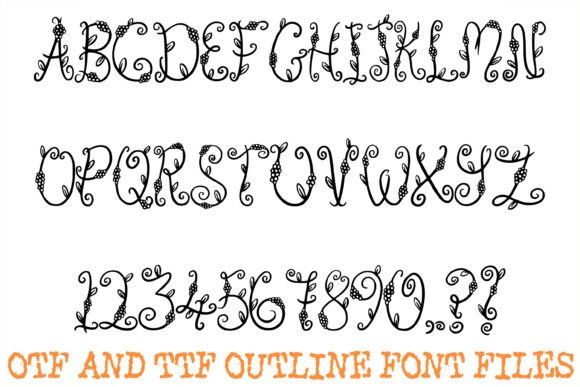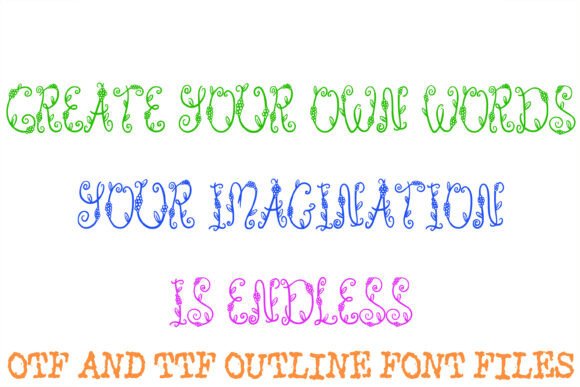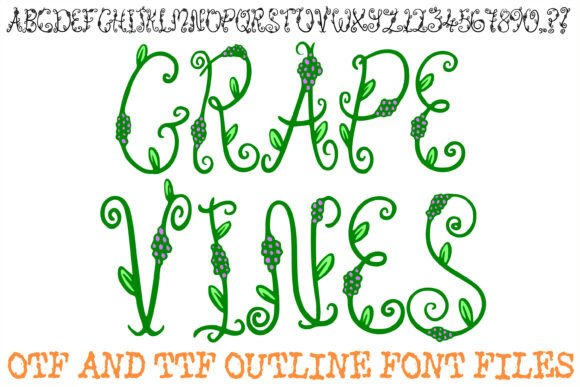
Introducing the Grape Vine Whimsy Swirly Food Font: Elevate Your Designs with a Touch of Nature
Are you looking for a unique and captivating font to add a refreshing, organic touch to your creative projects? Look no further than the Grape Vine Font, a charming decorative typeface that will transport your designs to a lush vineyard on a sunny summer day. This enchanting font is intricately designed with winding green vines, delicate leaves, and clusters of purple grapes integrated into every letter, making it the perfect choice for winery branding, garden-themed decor, summer party invitations, and any design that needs a whimsical, nature-inspired aesthetic.
The Perfect Blend of Whimsy and Sophistication
The Grape Vine Font is a masterful blend of whimsy and sophistication, making it an ideal choice for designers and crafters who want to add a touch of elegance to their projects. The font’s winding vines and delicate leaves create a sense of movement and fluidity, while the clusters of purple grapes add a pop of color and playfulness. Whether you’re designing a logo for a winery, creating a garden-themed party invitation, or simply looking for a unique font to add to your design arsenal, the Grape Vine Font is sure to impress.
With the Grape Vine Font, the design possibilities are endless. Here are just a few ideas to get you started:
- Winery Branding: Create a sophisticated and elegant brand identity for your winery with the Grape Vine Font. Use it for your logo, wine labels, and marketing materials to evoke the feeling of a lush vineyard.
- Garden-Themed Decor: Add a touch of whimsy to your garden-themed decor with the Grape Vine Font. Use it to create beautiful signs, plant labels, and garden markers that will make your garden stand out.
- Summer Party Invitations: Create stunning summer party invitations with the Grape Vine Font. Use it to design beautiful invitations, flyers, and posters that will set the tone for a fun and festive party.
- Food Blogging: Add a touch of elegance to your food blog with the Grape Vine Font. Use it to create beautiful headings, titles, and graphics that will make your blog stand out.
Key Features of the Grape Vine Font
The Grape Vine Font is a unique and versatile font that offers a range of features, including:
- Winding Green Vines: The font features winding green vines that create a sense of movement and fluidity.
- Delicate Leaves: The font includes delicate leaves that add a touch of elegance and sophistication.
- Clusters of Purple Grapes: The font features clusters of purple grapes that add a pop of color and playfulness.
- Whimsical and Nature-Inspired: The font has a whimsical and nature-inspired aesthetic that makes it perfect for designs that require a touch of elegance and sophistication.
Why Choose the Grape Vine Font?
There are many reasons why you should choose the Grape Vine Font for your next design project. Here are just a few:
- Unique and Eye-Catching: The Grape Vine Font is a unique and eye-catching font that will make your designs stand out.
- Versatile: The font is versatile and can be used for a range of design projects, from winery branding to garden-themed decor.
- Elegant and Sophisticated: The font has an elegant and sophisticated aesthetic that makes it perfect for designs that require a touch of luxury.
In conclusion, the Grape Vine Whimsy Swirly Food Font is a unique and captivating font that will add a refreshing, organic touch to your creative projects. With its winding green vines, delicate leaves, and clusters of purple grapes, this enchanting decorative typeface is the perfect choice for designers and crafters who want to create beautiful and elegant designs. Whether you’re designing a logo for a winery, creating a garden-themed party invitation, or simply looking for a unique font to add to your design arsenal, the Grape Vine Font is sure to impress.